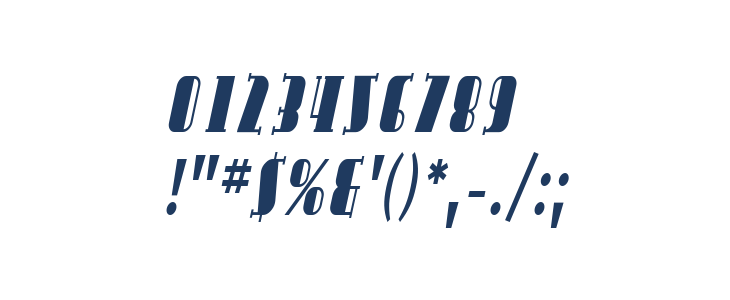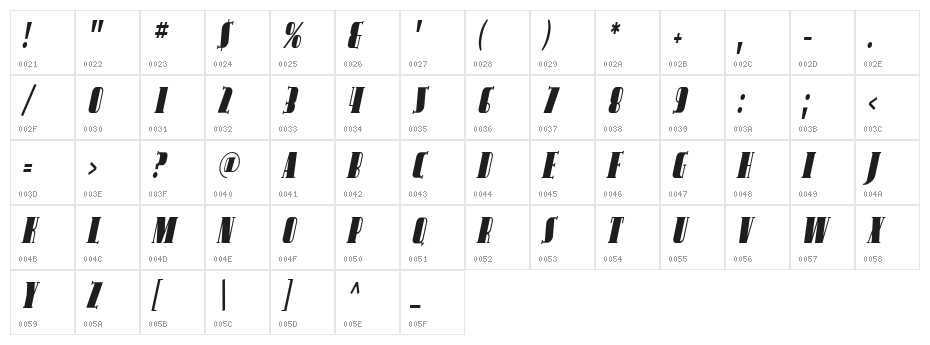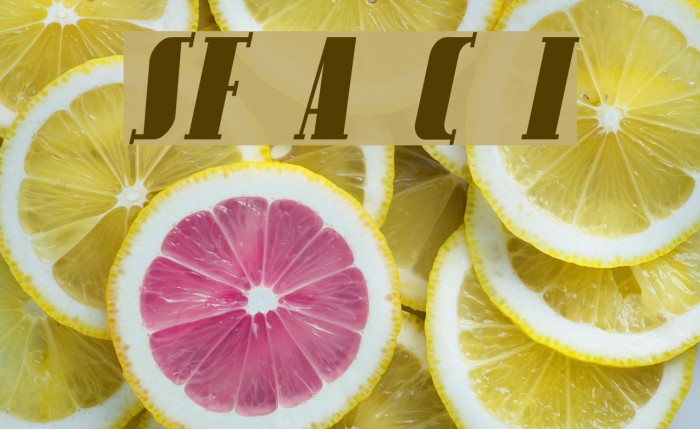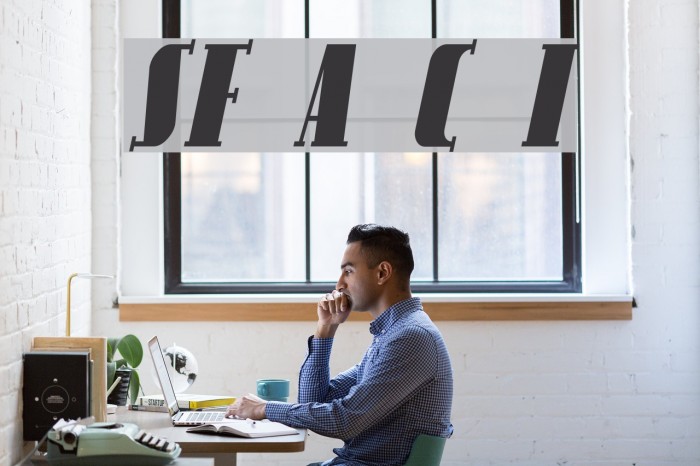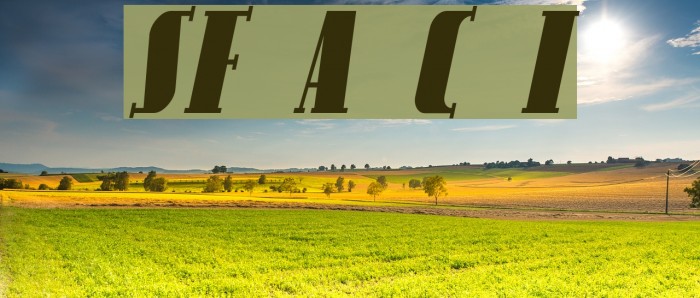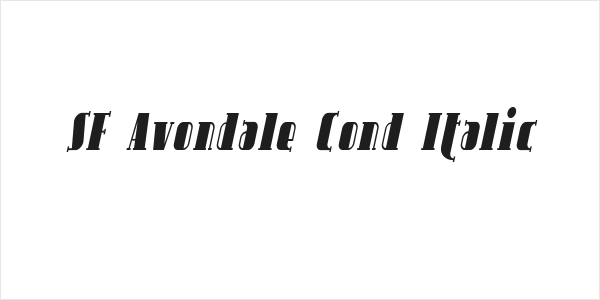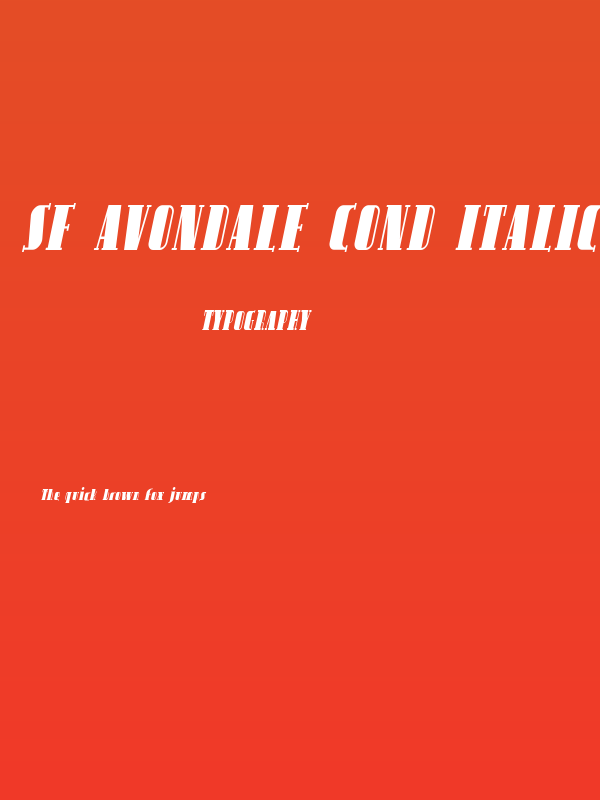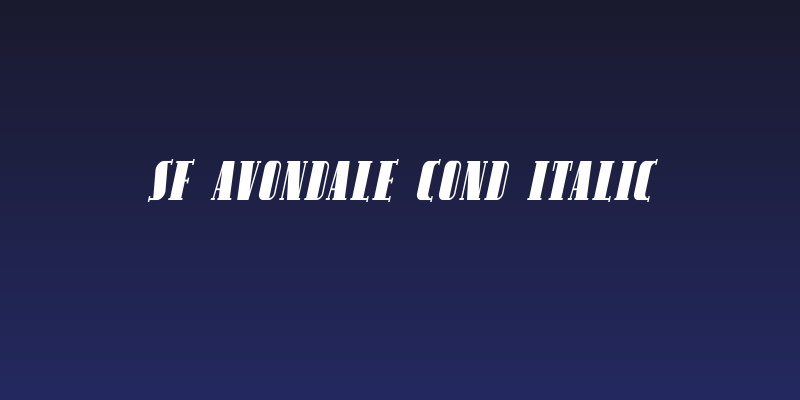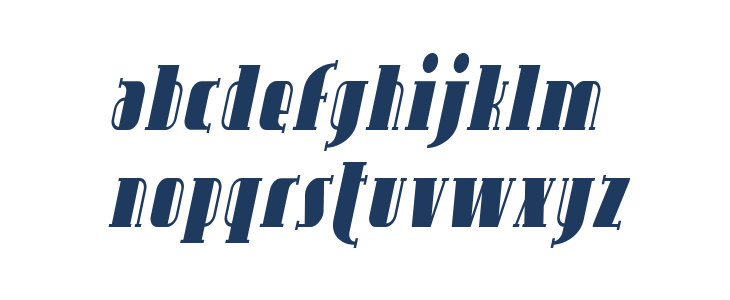
SF Avondale Cond Italic Font
SF Avondale Cond Italic Description
This font features a distinctive italic style with a condensed width, giving it a sleek and modern appearance. The characters are bold, with a high contrast between thick and thin strokes, enhancing readability while maintaining an elegant flair. The uppercase letters are tall and narrow, while the lowercase letters follow a similar condensed form, creating a cohesive look. The numerals and special characters are designed to match the overall style, providing a consistent visual experience. The font's sharp angles and clean lines make it suitable for projects that require a contemporary and professional touch.